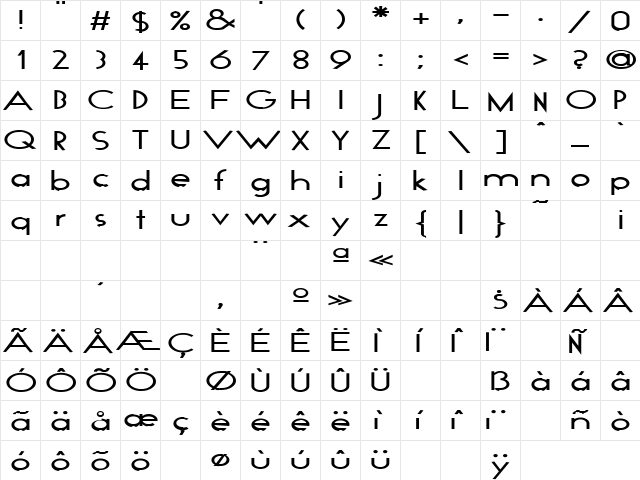
Time 3 Regular
Design Context for Time 3 Typeface
Time 3 offers clean, dependable letterforms without strong stylistic allegiance, making it a practical choice for designers who need flexibility.
Pro Tip: Use Time 3 in both headline and body roles to test its range before committing to a single application.